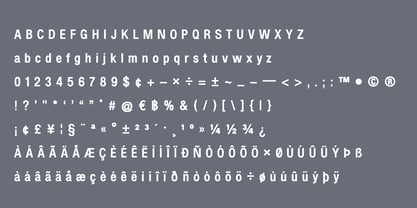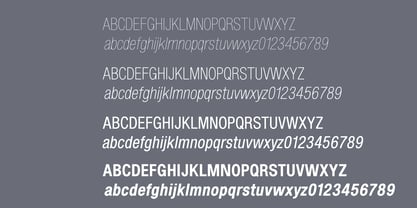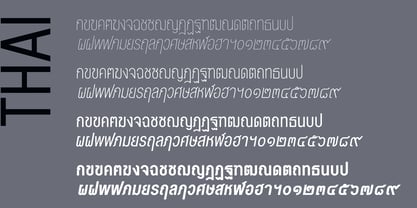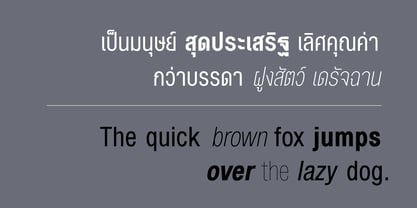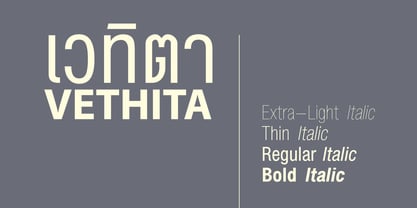
Vethita
by ComGlyph
The Vethita Font Family was designed by Pornthep Luckanawat and published by ComGlyph. Vethita contains 8 styles and family package options. More about this family
Vethita : is a sans-serif font designed to be a modern Thai font, while still being easy to read because it retains the original structure of the language, preventing confusion with certain characters.
Currently, Vethita typeface includes :
- 4 different weights: Extra Light, Thin, Regular, Bold
- Italic style for each weight
Designers: Pornthep Luckanawat
Foundry: ComGlyph